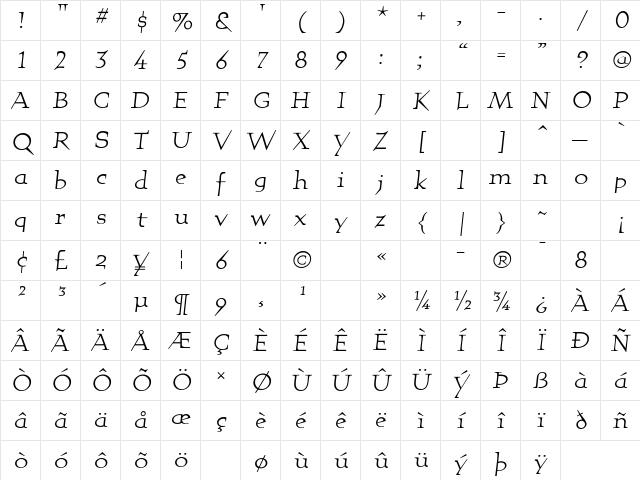
SlighterSSK is a composed and adaptable typeface that performs quietly and consistently across a wide range of design contexts. Its slender proportions lend an understated elegance to any composition.